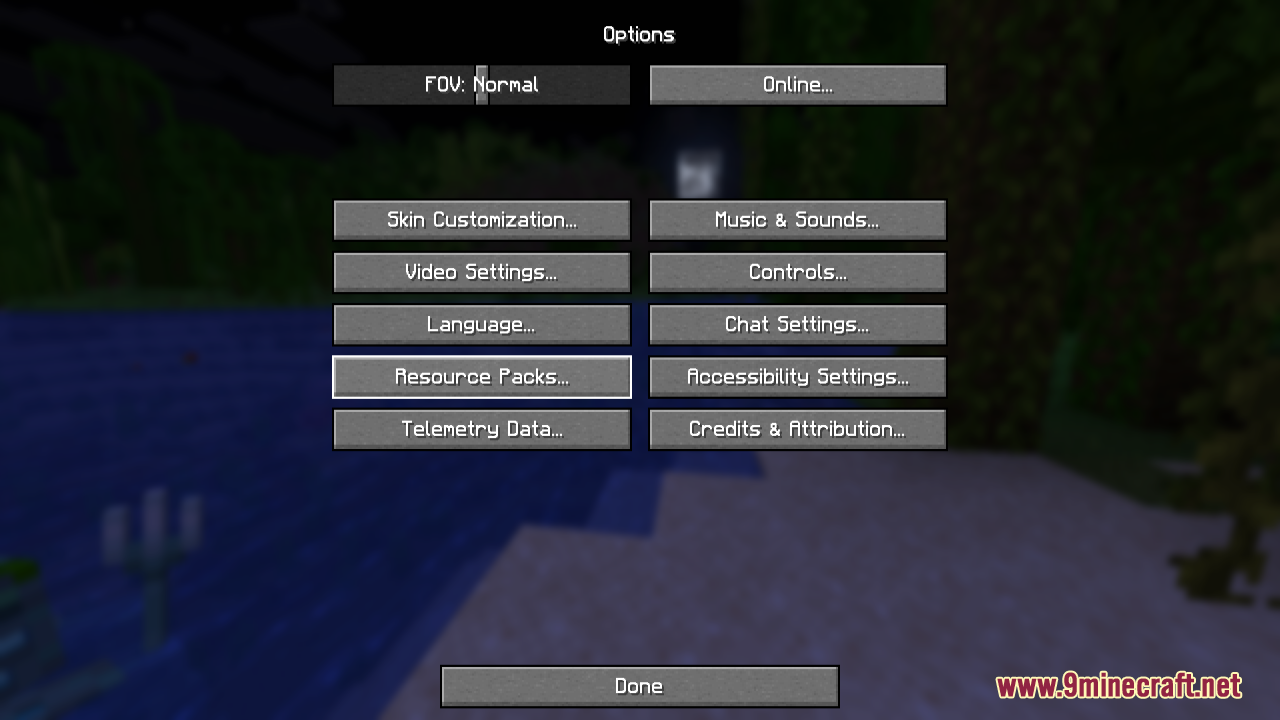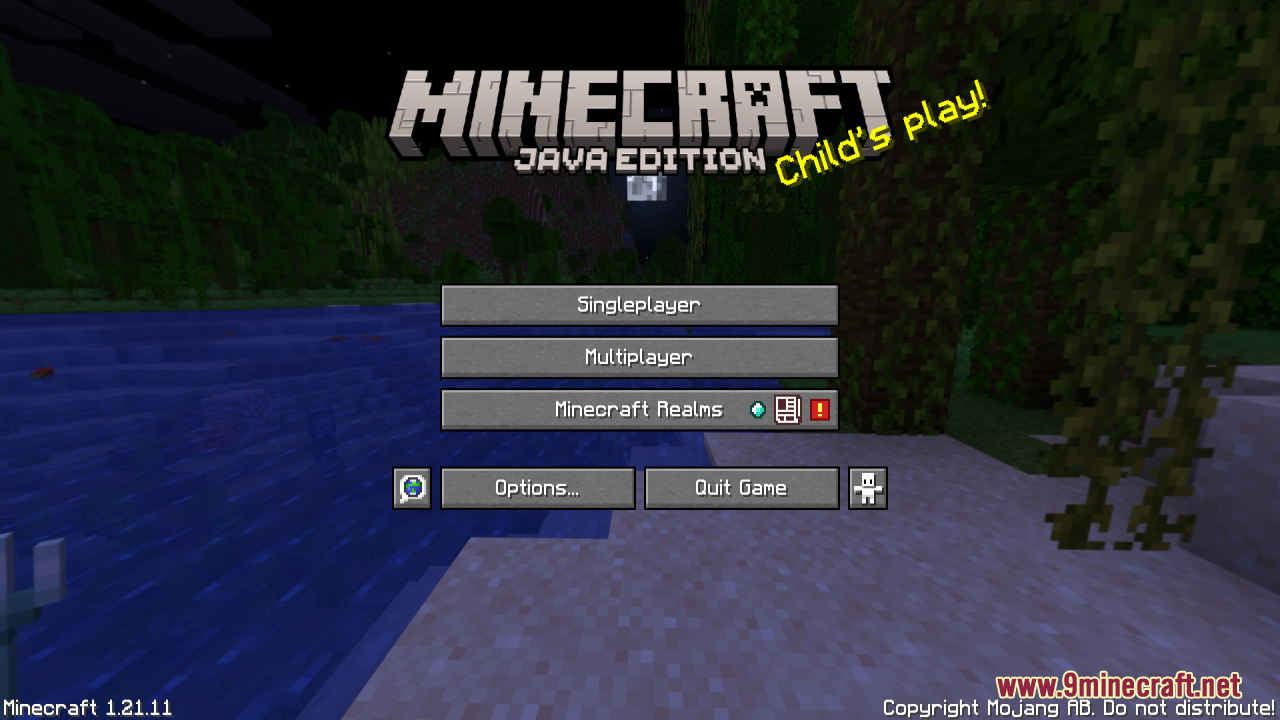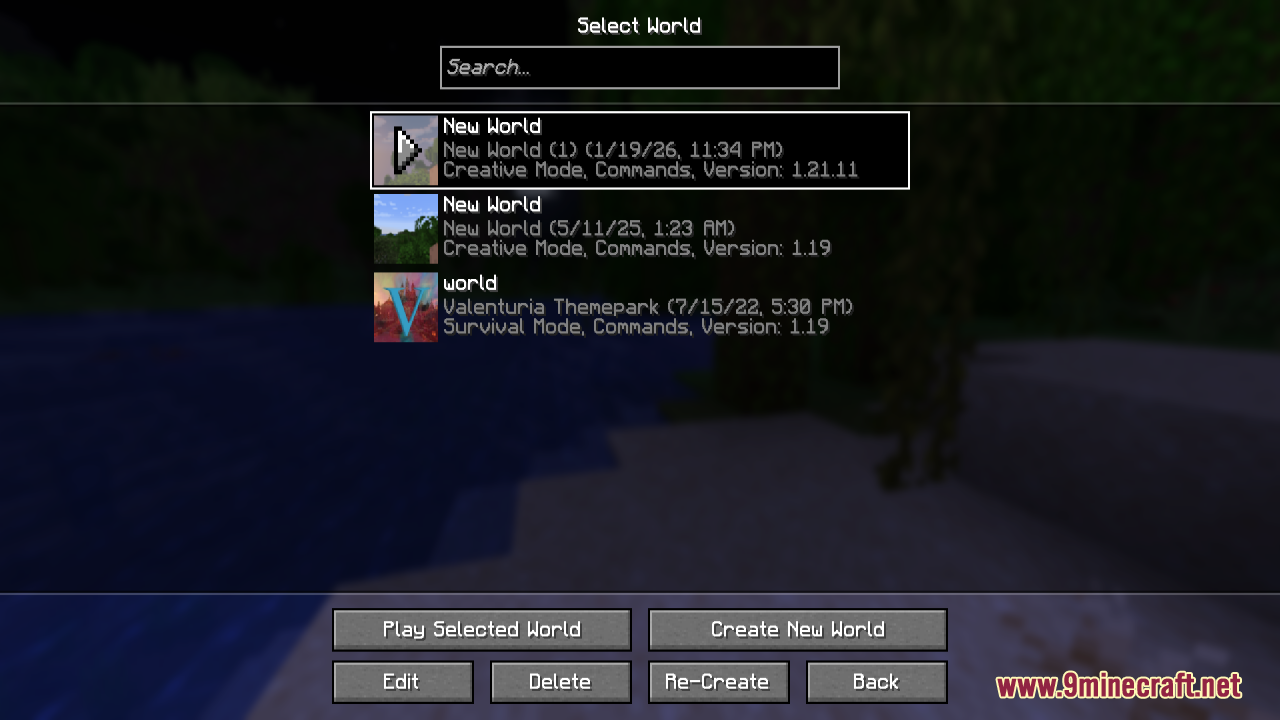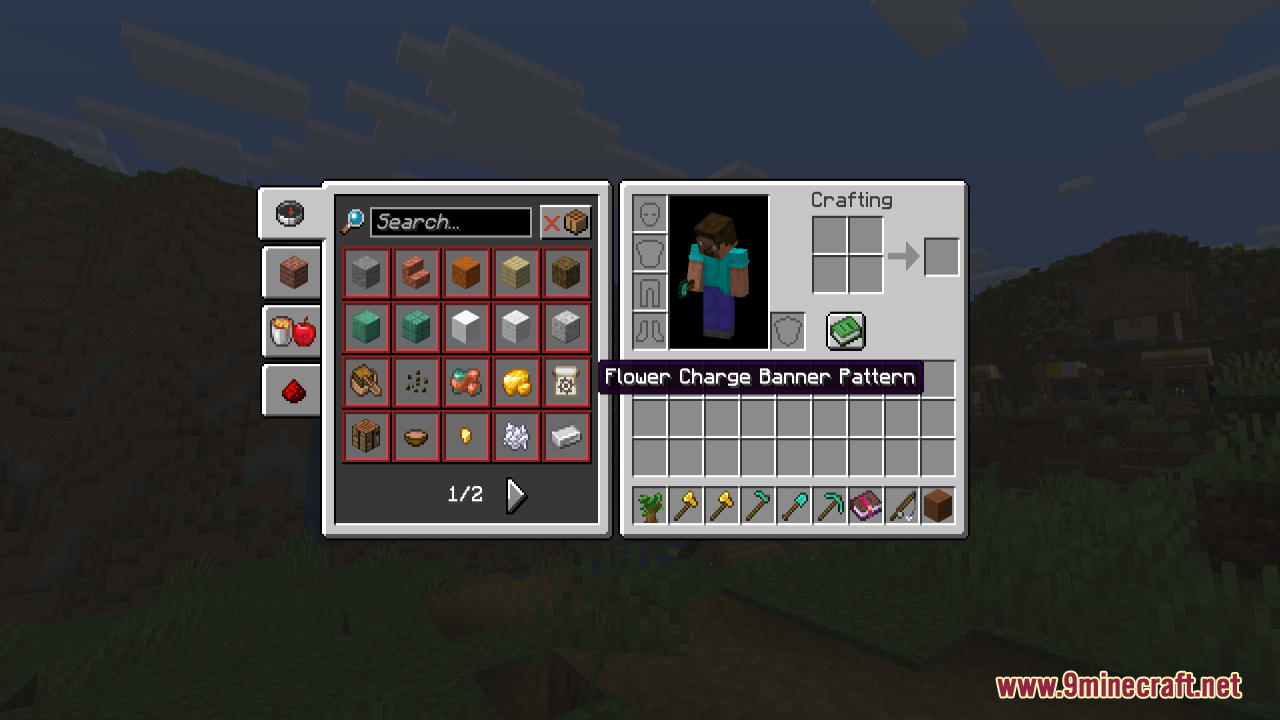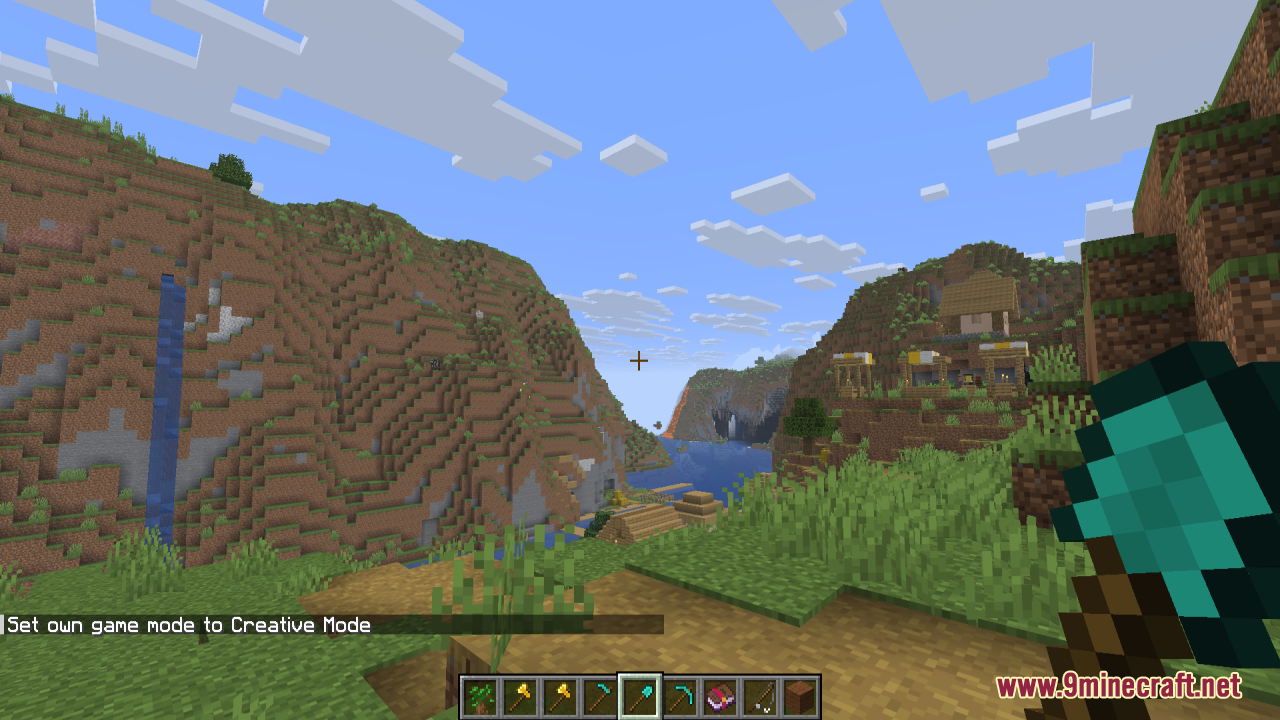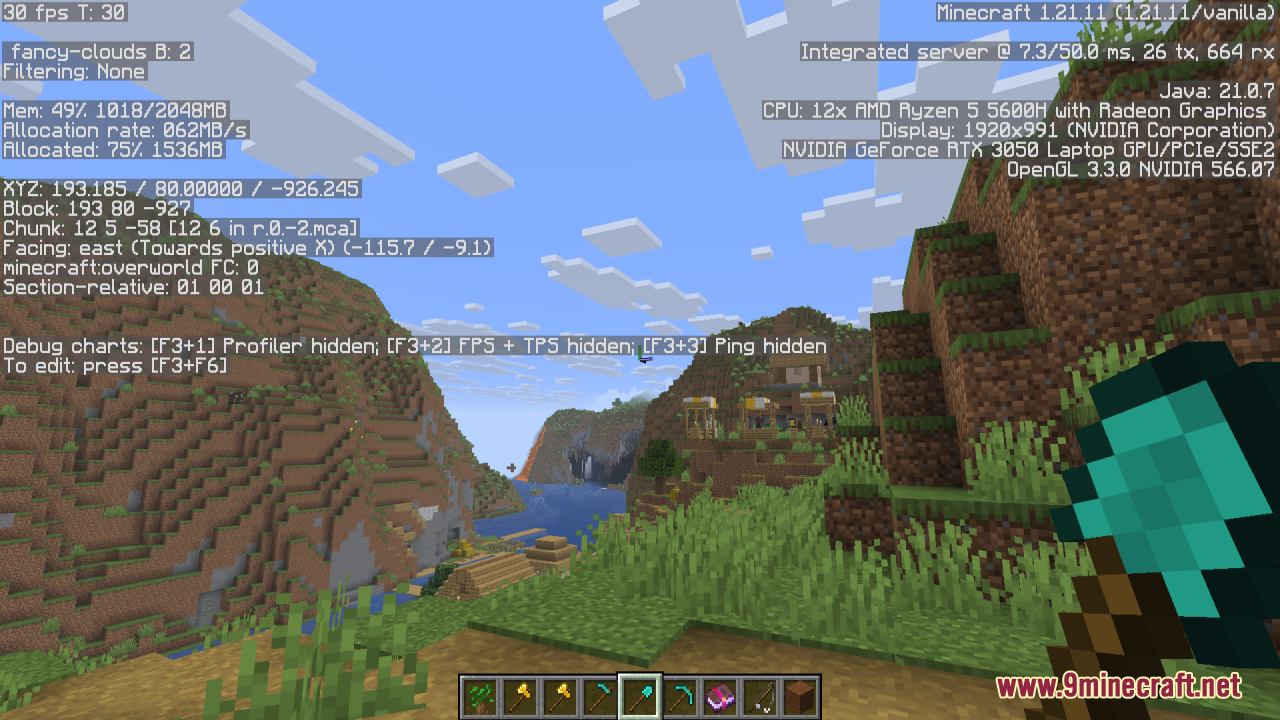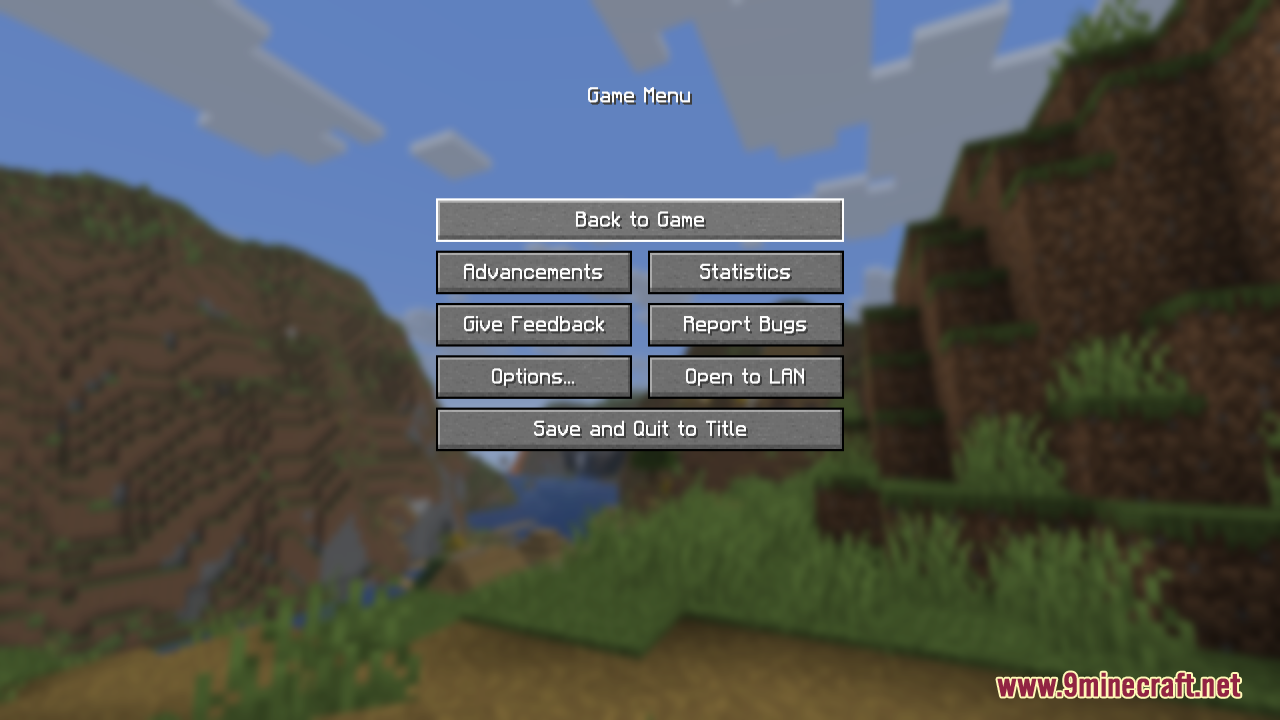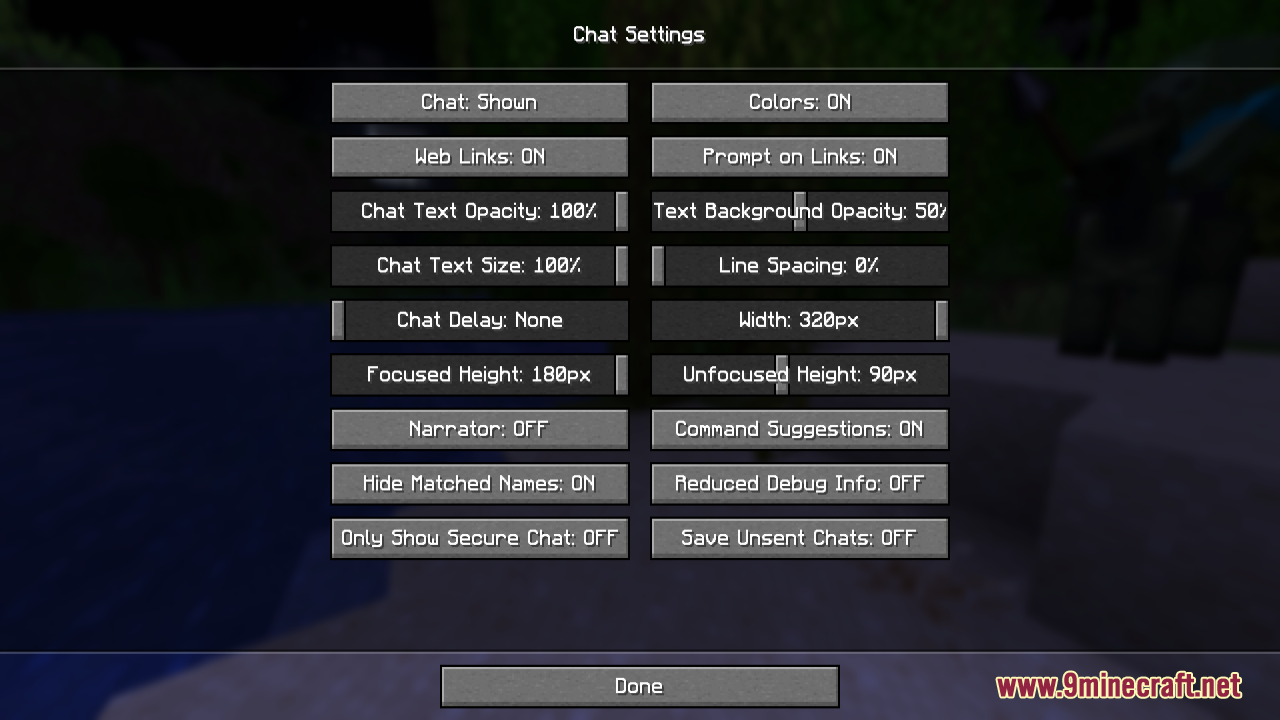
Smooth Font Resource Pack is a simple yet impactful Minecraft resource pack that improves the game’s readability by replacing the default pixelated font with a smoother, more polished version. By softening edges and refining letter shapes, it makes text across menus, chat, and in-game interfaces clearer and more comfortable to read. This visual enhancement does not affect gameplay mechanics, but it significantly improves overall UI clarity and gives the game a cleaner, more modern feel. It is ideal for players who value readability, accessibility, and a refined interface during both casual and extended gameplay sessions.